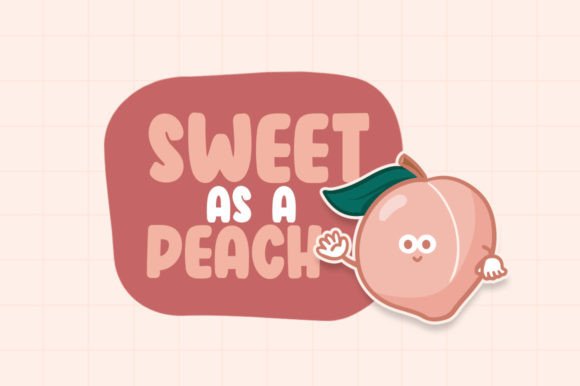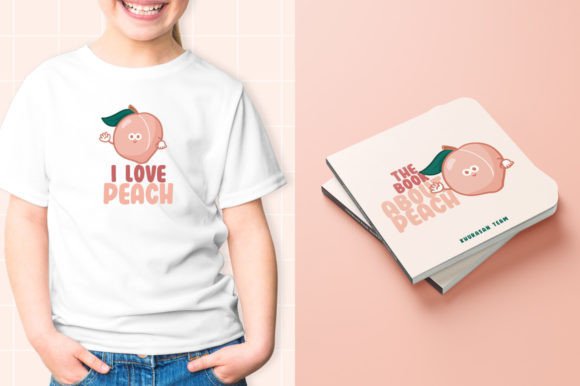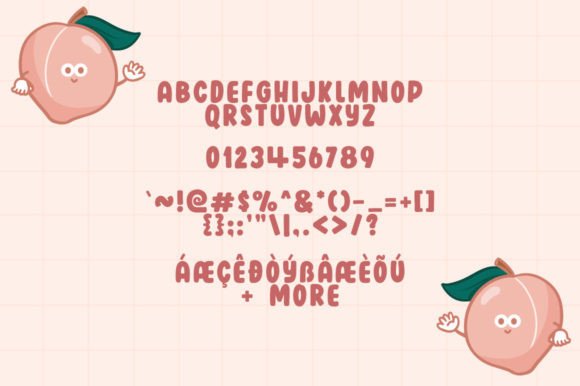
Introduction to Peach Days Font
Do you remember the excitement of creating your first design project? The rush of ideas, the thrill of bringing your concept to life? For designers, those moments are what make the job so rewarding. But sometimes, finding the perfect font to match your vision can be a challenge. That’s where the Peach Days Font comes in – a fun and cool display font that’s sure to add a playful touch to any design.
Whether you’re working on a cartoon-related project, a children’s game, or just need a creative resource to elevate your design, the Peach Days Font is an invaluable addition to your toolkit. With its high-quality design and versatility, this font is perfect for designers who want to add a little extra flair to their work. And the best part? It’s available for free download with a transparent background, making it easy to integrate into any design project.
Key Features of Peach Days Font
- Peach Days Font is a high-quality design resource ideal for various creative projects.
- This font features a transparent background, allowing for seamless integration into various design elements.
- The unique, hand-drawn style of Peach Days Font adds a touch of elegance and sophistication to any creative project.
Honest Review: Peach Days Font
I recently came across the Peach Days Font, and I was excited to dive into it for my next creative project. As a designer, I always appreciate a good design resource, and this font did not disappoint.
- Unique and playful characters: The Peach Days Font offers a range of whimsical characters that add a touch of personality to any design.
- High-quality design: The font is well-designed and looks great on both light and dark backgrounds.
- Limited font weights: While the font has a range of unique characters, it only comes in a few font weights, which may limit its versatility.
- No transparent background option: If you’re looking for a font with a transparent background, you may be out of luck with the Peach Days Font.
Overall, I’m impressed with the Peach Days Font. It’s a great addition to any designer’s toolkit, and its unique characters make it a great choice for creative projects. While it has some limitations, I think it’s a valuable resource for designers looking for a high-quality, free font.
Use the Peach Days Font in combination with a transparent background to create a modern and sleek design. Experiment with different font sizes and colors to add depth and visual interest to your project.
The Peach Days Font is perfect for creative projects such as wedding invitations, business cards, and social media graphics. It’s also great for designing menus, labels, and other print materials where a high-quality font is essential.